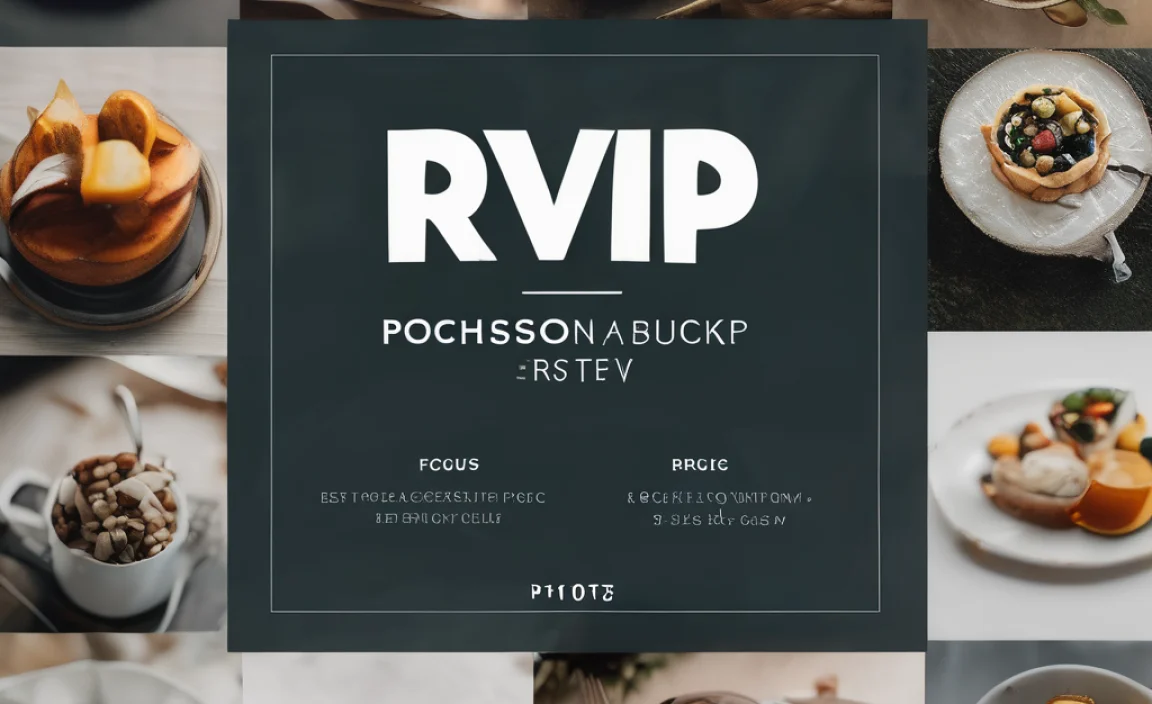
Have you ever seen a fancy invitation? The letters look so pretty, right? These letters are the RSVP font. It’s fancy and fun to look at. But what’s the best way to see these letters? Stock photos! You can find the best stock photos of RSVP font online. They show different styles and designs. Let’s explore these amazing pictures together!
Key Takeaways
- Stock photos show many styles of the RSVP font.
- Best stock photos of RSVP font on stock sites are easy to access.
- These photos help create beautiful invitations.
- RSVP font is fancy and adds elegance to designs.
- Stock photos save time for designers and creators.
Why Choose Best Stock Photos Of RSVP Font?
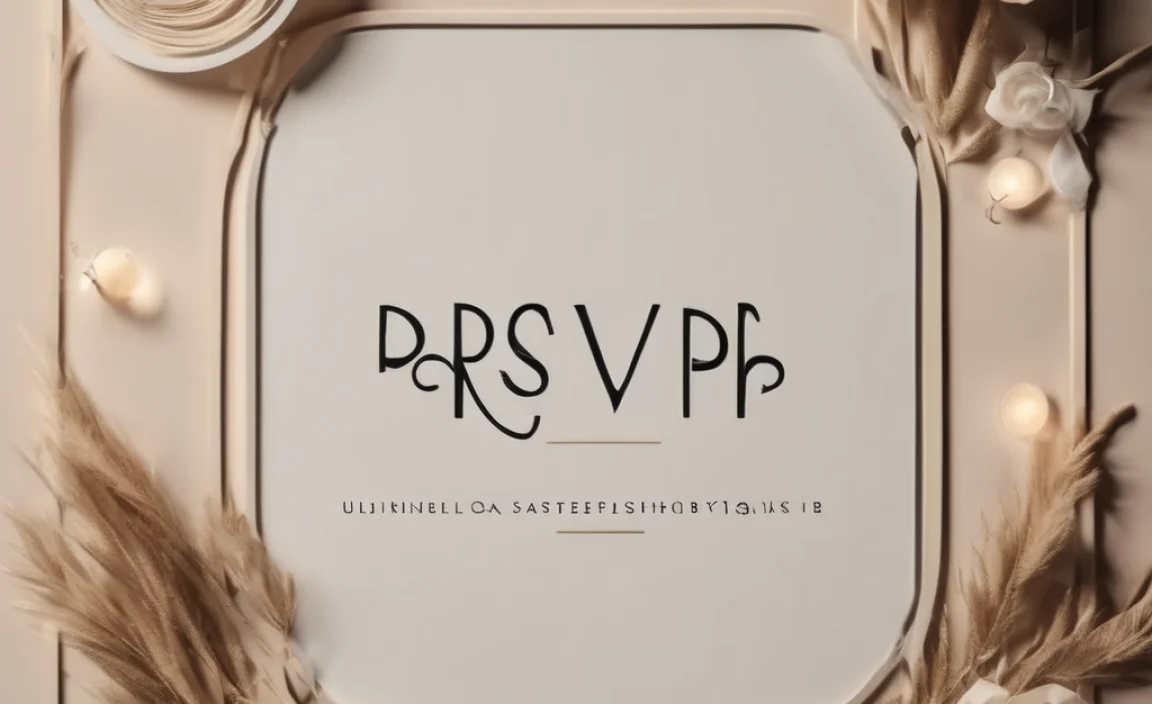
Stock photos offer many options for the RSVP font. Designers love using these fonts for invitations. The RSVP font adds an elegant touch. It makes any card look special. Using stock photos helps you see how the font looks. They provide inspiration for your projects. You can choose from many different styles. Each style tells a different story. This helps you decide which one fits your event best.
- Stock photos offer various styles.
- They provide design inspiration.
- RSVP font makes invitations look special.
- Photos show real-life examples of use.
- They help in choosing the right design.
- Supports creativity in planning events.
Stock photos of the RSVP font are easy to find. They make your design process simple. You can use them to create eye-catching invitations. These photos also help you save time. Why spend hours designing when you can find ready-made inspiration? You can mix and match styles too. This makes your work fun and creative. Make sure to check out these photos for your next project!
Finding the Perfect RSVP Font Style
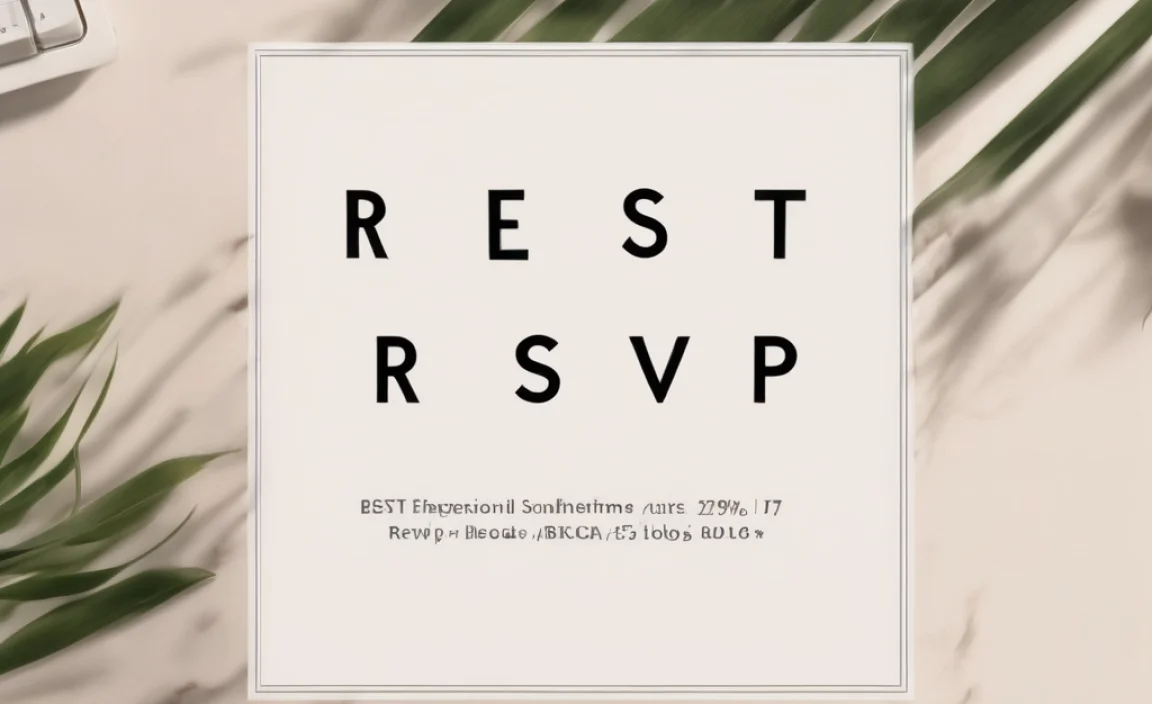
Are you looking for the perfect RSVP font? The best stock photos of RSVP font can help. Each photo shows a different style. Some are swirly, while others are bold. Choosing the right style depends on your event. A wedding might need a fancy font. A birthday party could use a playful one. These stock photos give you options. You can view them and pick your favorite. It’s like shopping for fonts!
- Choose fonts based on event type.
- View different styles and designs.
- Find swirly or bold options.
- See fonts suited for weddings.
- Explore playful fonts for parties.
Finding the right RSVP font style is easy with stock photos. They offer a wide range of choices. You can see how each font looks on an invitation. This helps you decide the perfect one for your event. Don’t worry if you’re not sure at first. Try different styles to see what works best. It’s a creative process that’s fun and rewarding!
How Best Stock Photos Of RSVP Font Enhance Design
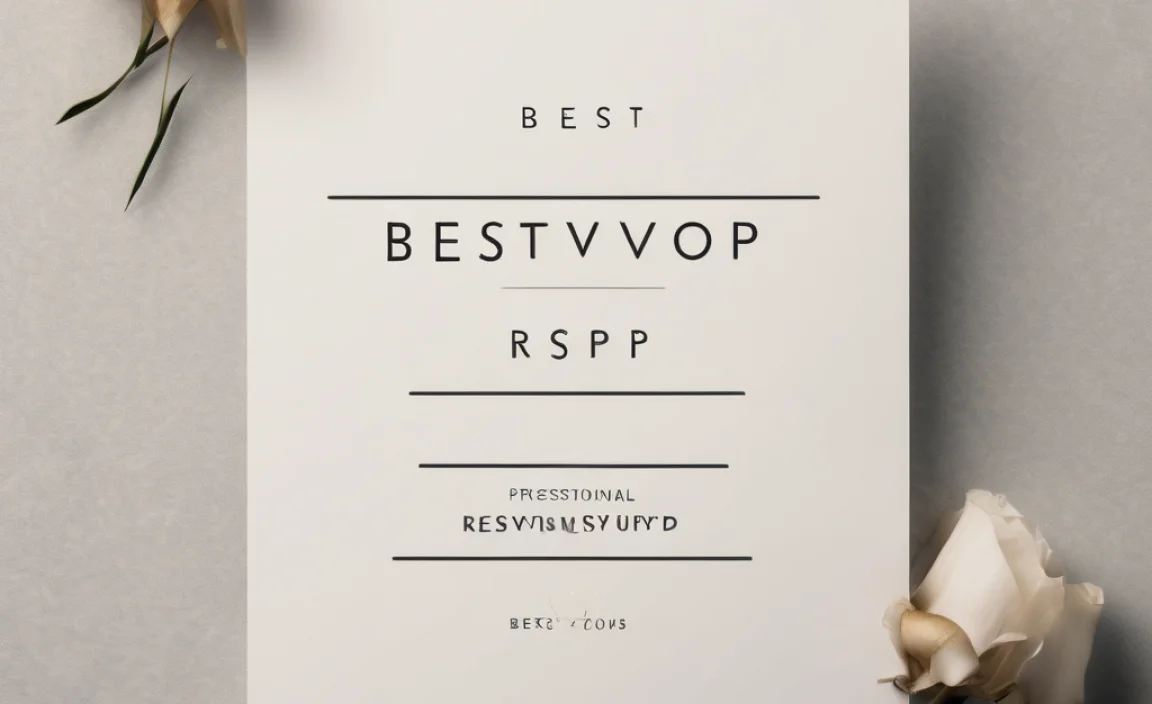
Designers love using stock photos of the RSVP font. These photos enhance their designs. They provide a clear idea of how an invitation will look. This is important for creating a memorable event. The font adds elegance and charm. It’s like adding sprinkles on a cupcake. Stock photos help creators visualize their ideas. They can easily tweak designs to fit their needs.
- Enhances design projects.
- Offers visual clarity for ideas.
- Boosts inspiration and creativity.
- Shows elegance and charm.
- Facilitates easy design tweaks.
- Provides templates for events.
- Makes invitations memorable.
Using stock photos is a smart choice for designers. It helps bring their ideas to life. They can see what works and what doesn’t. This makes planning events much smoother. The RSVP font adds a special touch to any invitation. It’s important to choose a font that matches the occasion. With stock photos, you have a guide to follow. This makes everything easier and more fun!
Comparing Different Styles Of RSVP Font
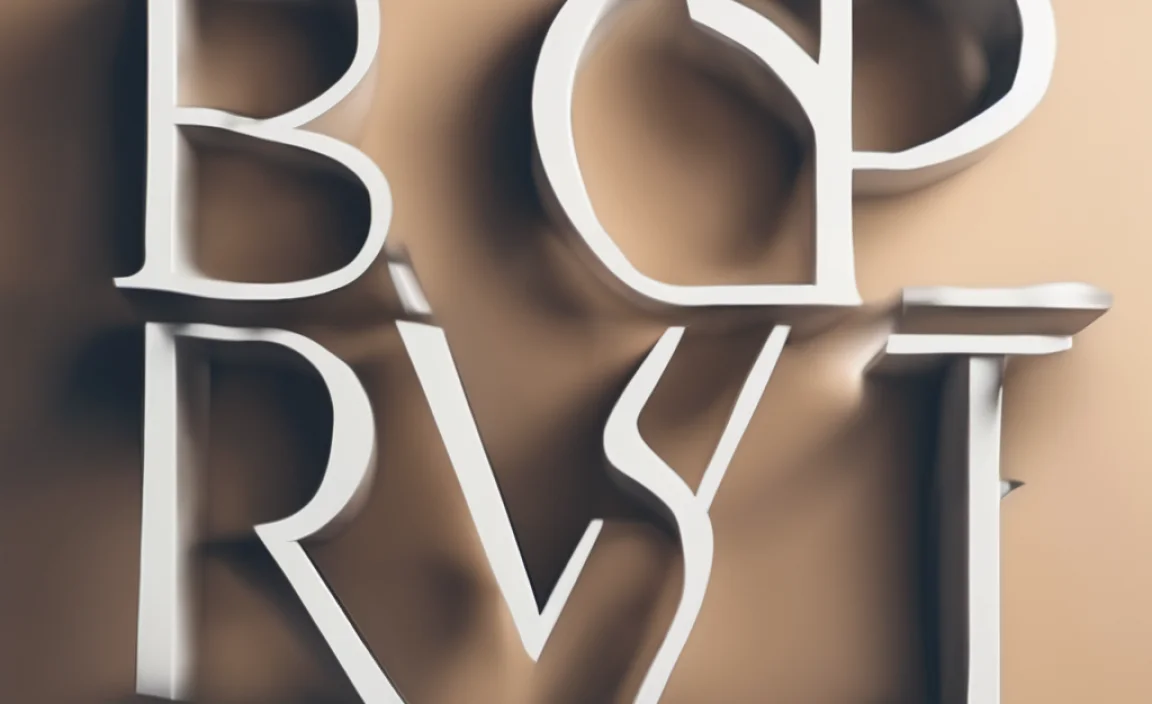
Sometimes choosing a font feels tricky. That’s where comparing different styles helps. The best stock photos of RSVP font make this easy. You can see all the options side by side. This comparison shows you which font fits your theme. Maybe you like a classic look. Or perhaps something modern catches your eye. Seeing these choices helps you pick the best one. It’s like trying on clothes to see what fits!
| Style | Features | Best For |
| Classic | Elegant, timeless | Weddings |
| Bold | Strong, eye-catching | Corporate Events |
| Playful | Fun, colorful | Birthday Parties |
| Minimalist | Simple, clean | Modern Gatherings |
- Compare styles side by side.
- See which font fits your theme.
- Choose between classic or modern.
- Understand font features easily.
- Pick what best suits your event.
Answer: Yes, stock photos are perfect for birthday invitations. They offer playful and colorful font styles. You can select what suits your party theme best. This makes the invitation fun and inviting.
Question: Do stock photos of RSVP font come with templates?
Answer: Some stock photos do include templates. These templates help in designing invitations quickly. They provide a ready-made layout for your text and images. This simplifies the design process.